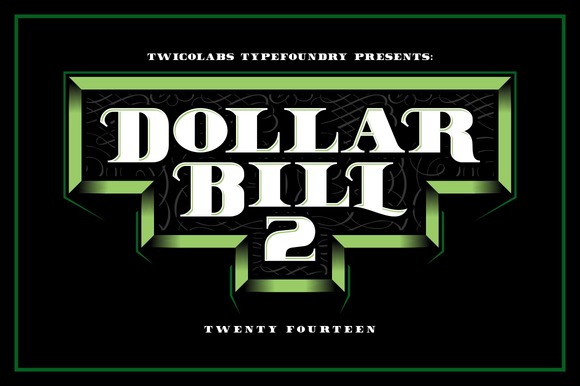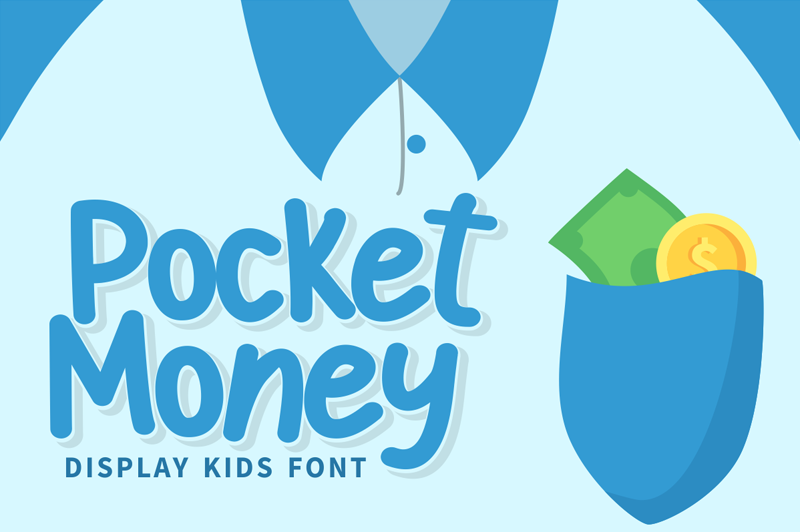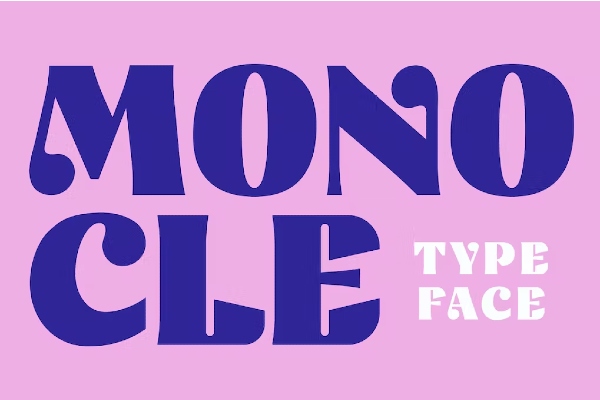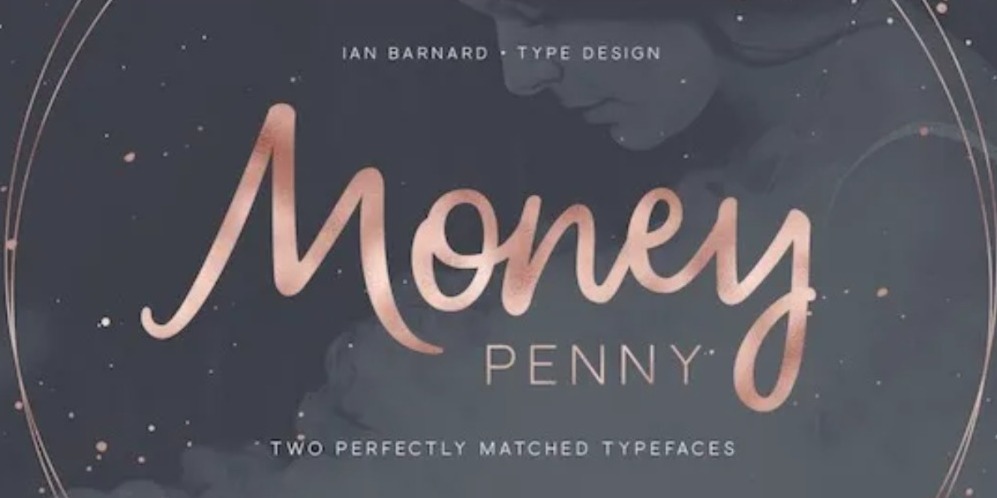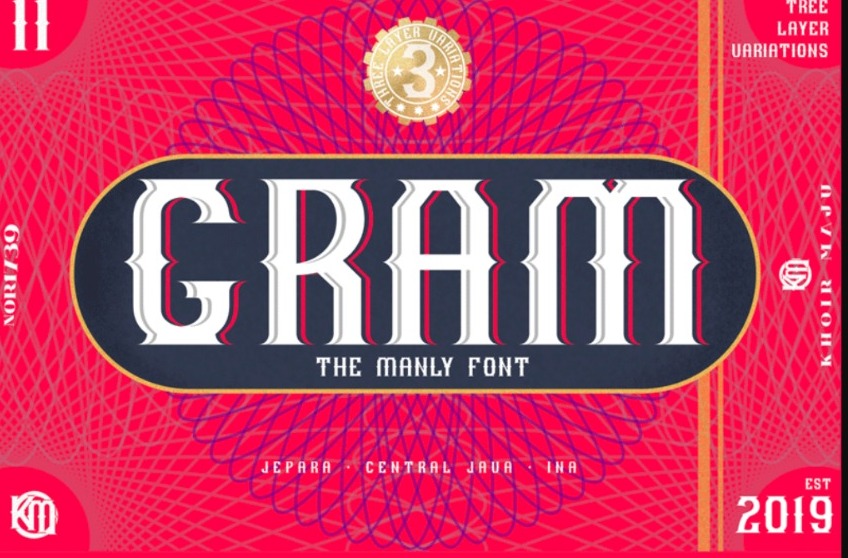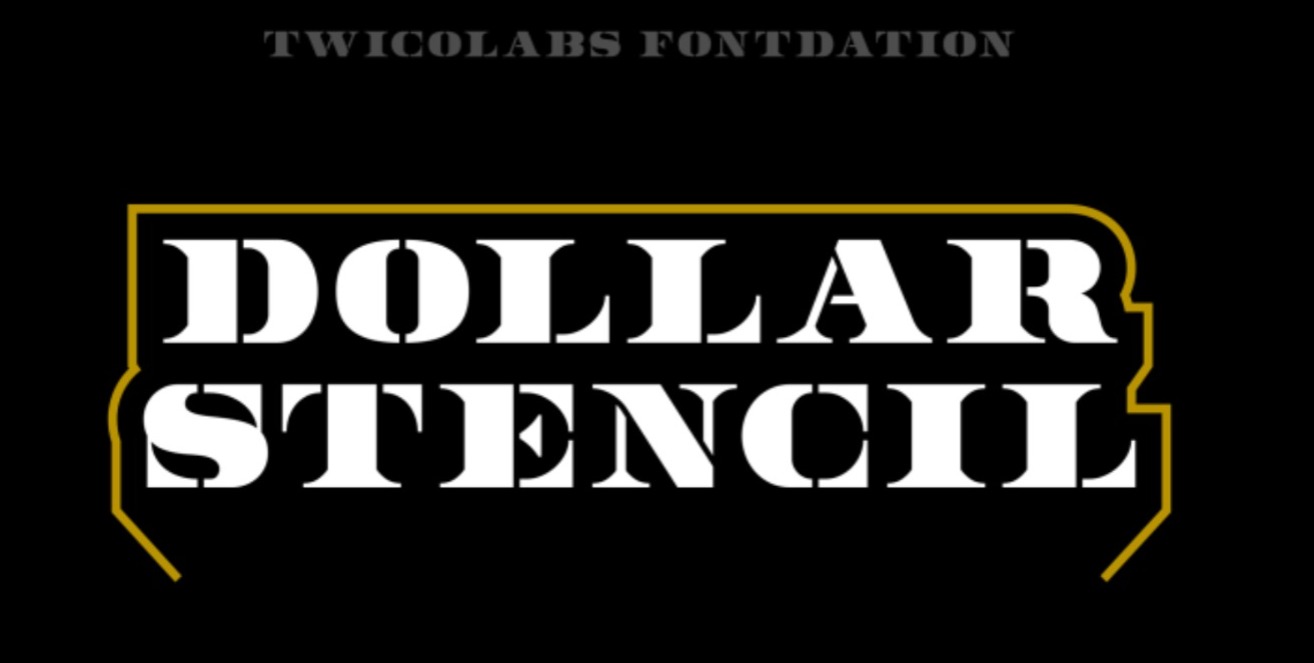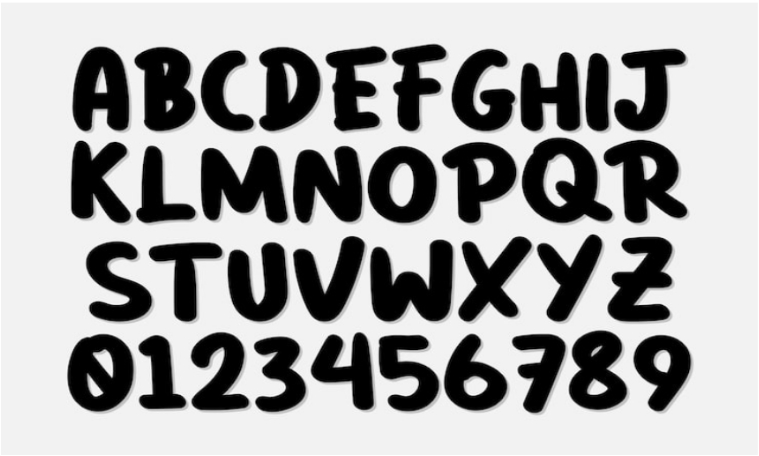
6 Best Money Font for Upscale Your Finance-Related Designs
If you are interested in becoming a professional graphic designer, then you need to improve your knowledge. Typography is an important element in graphic design because it is useful for conveying information and adding aesthetic value. So if you need to make a design related to finance or business, use the appropriate money font.
Take your finance and business-related design to the next level by choosing a font that is detailed-oriented and has a unique look. Make sure to keep scrolling through this article for some great inspiration!
Best Choice of Free Money Font
There are many types of fonts you can use to enhance the impression that you want to highlight in your design. You can consider some of these free font choices below to upscale your design statement:
1. Dollar Bill 2
Dollar Bill 2 font is a fresh and modern type. This font only provides capital letters and numbers that can make your design stand out as a work of art. Dollar Bill 2 font letters and numbers are wide and bold. Therefore, typography that uses Dollar Bill 2 will be easier to notice because it has pretty good legibility.
If you want to bring a classic or vintage feel to your design, it would be perfect to choose Dollar Bill 2. You can also use this font for titles or logos that are closely related to business and finance.
2. Pocket Money
If you are creating a design with a target audience of children, make sure to choose an adorable font. Lovely and adorable fonts are suitable for children’s characters to make the design more interesting and fun.
You can consider Pocket Money font to enhance and brighten up your designs. This font can be used for special events, for example, inviting children to save money. This clean and tidy display font is also very comprehensive as it provides uppercase, lowercase, numbers, and punctuation.
3. Monocle
Want to create an eye-catching design? Try using the Monocle font because the letters are bold and wide. Given its wide size, this money font is more suitable for short text or logos.
The unique point of Monocle is that not all parts of the letters are thick and wide because one part of the letters use a slimmer line. If you want to present a strong piece of art with a vintage feel, Monocle is a great choice.
4. Money Penny
An important point you should pay attention to before creating a design is the target audience. If your design target is mature women, try to use fonts with an elegant and sweet display. Well, you can rely on Money Penny to bring that feeling.
The thing that makes the Money Penny font unique and fascinating is the combination of san serif and script. The signature san serif font without strokes collaborated with the script with a lovely touch of simple lines. As a result, it looks like semi-cursive letters.
5. Gram
Are you working on logo projects, certificates, book covers, money designs, product packaging, or other financial-related designs? We recommend that you consider the Gram font as it has unique and eye-catching details. The Gram typeface features a collaboration of classic and modern typographic looks.
Your design will also look stylish if you use this font because there are layers that form thin shadow lines. The Gram font presents a non-cramped look due to the little space between letters. That means this type of font is very clear and easy to read.
6. Dollar Stencil
The last recommended font that can enhance your design is Dollar Stencil. You can also rely on this money font number when making designs related to numbers because it provides bold and wide number designs. Wide and bold display fonts make it easier to notice.
This font, inspired by the design of banknotes, also has high artistic value. Hence, Dollar Stencil will bring very strong classic elements.
Which Money Font Matches Your Design Theme?
The money font recommendations above are very varied because each has its own unique character. To produce a stunning design, make sure to choose a font that matches your design concept.